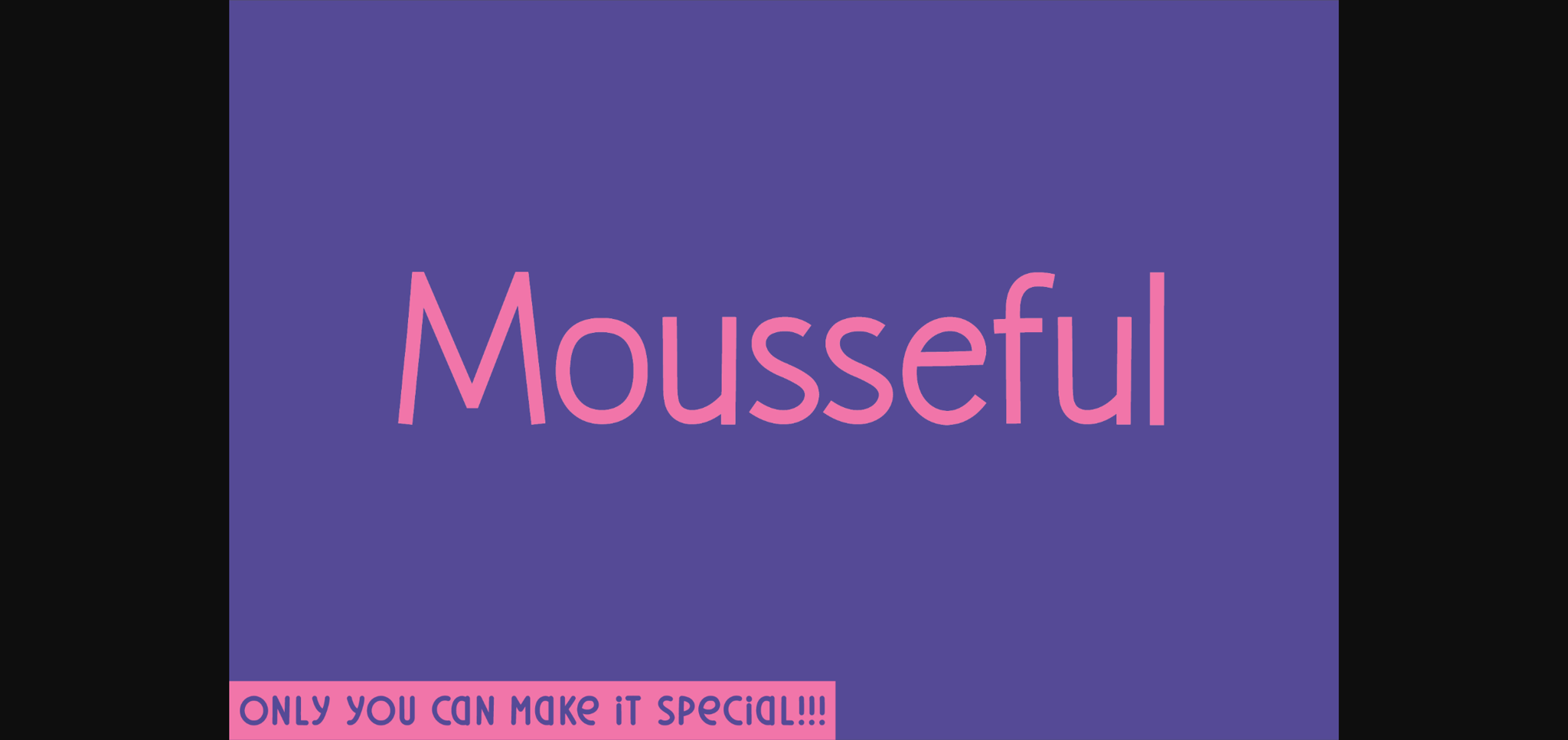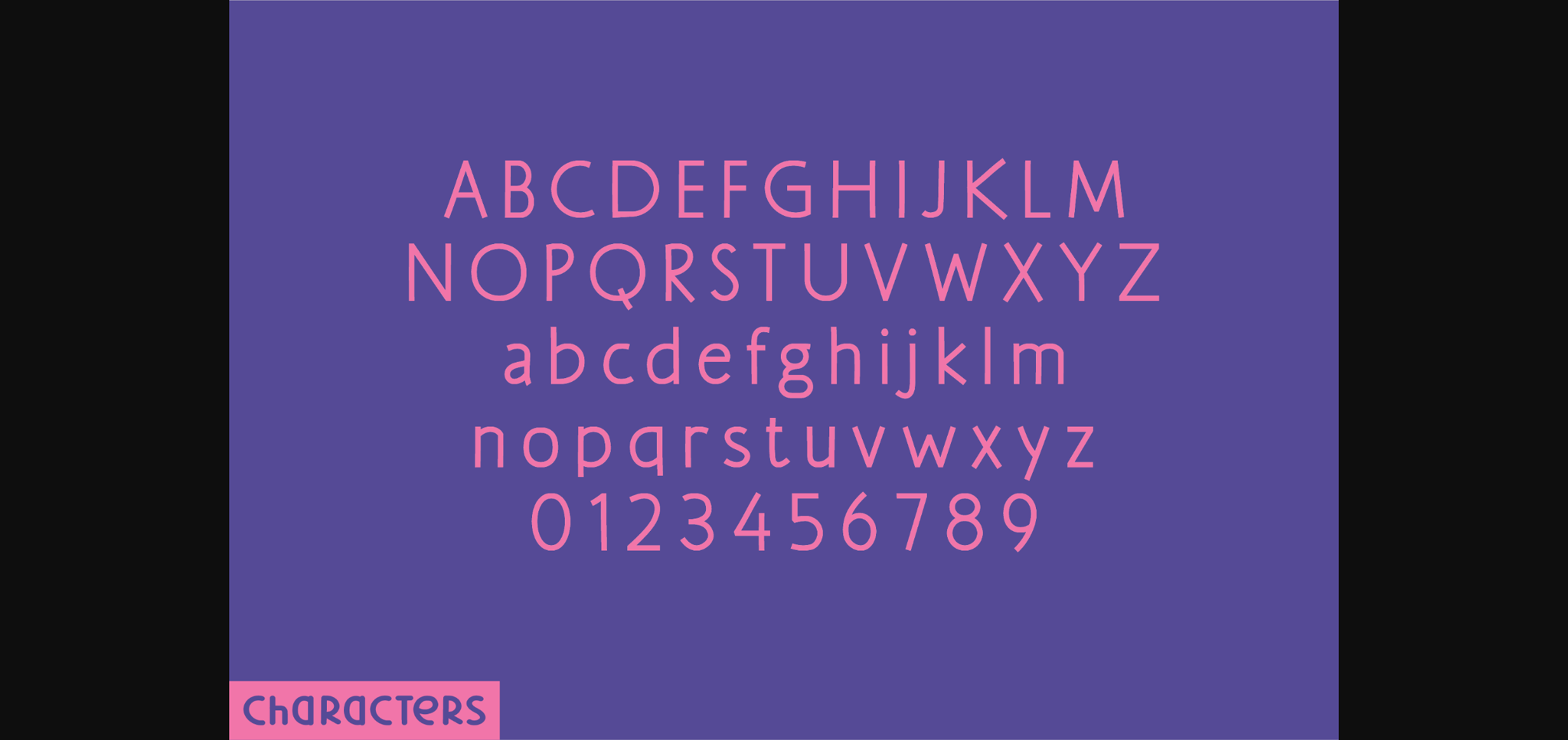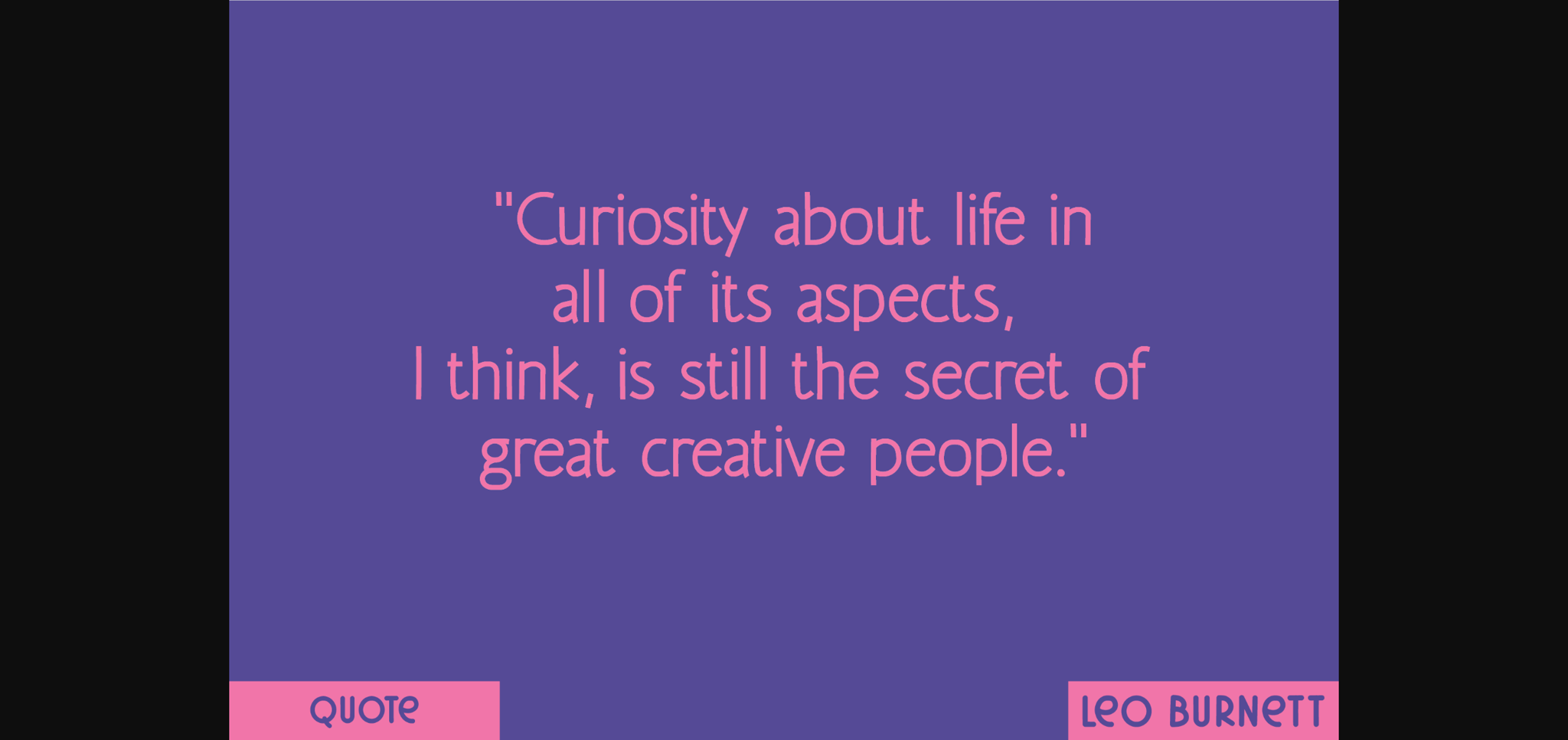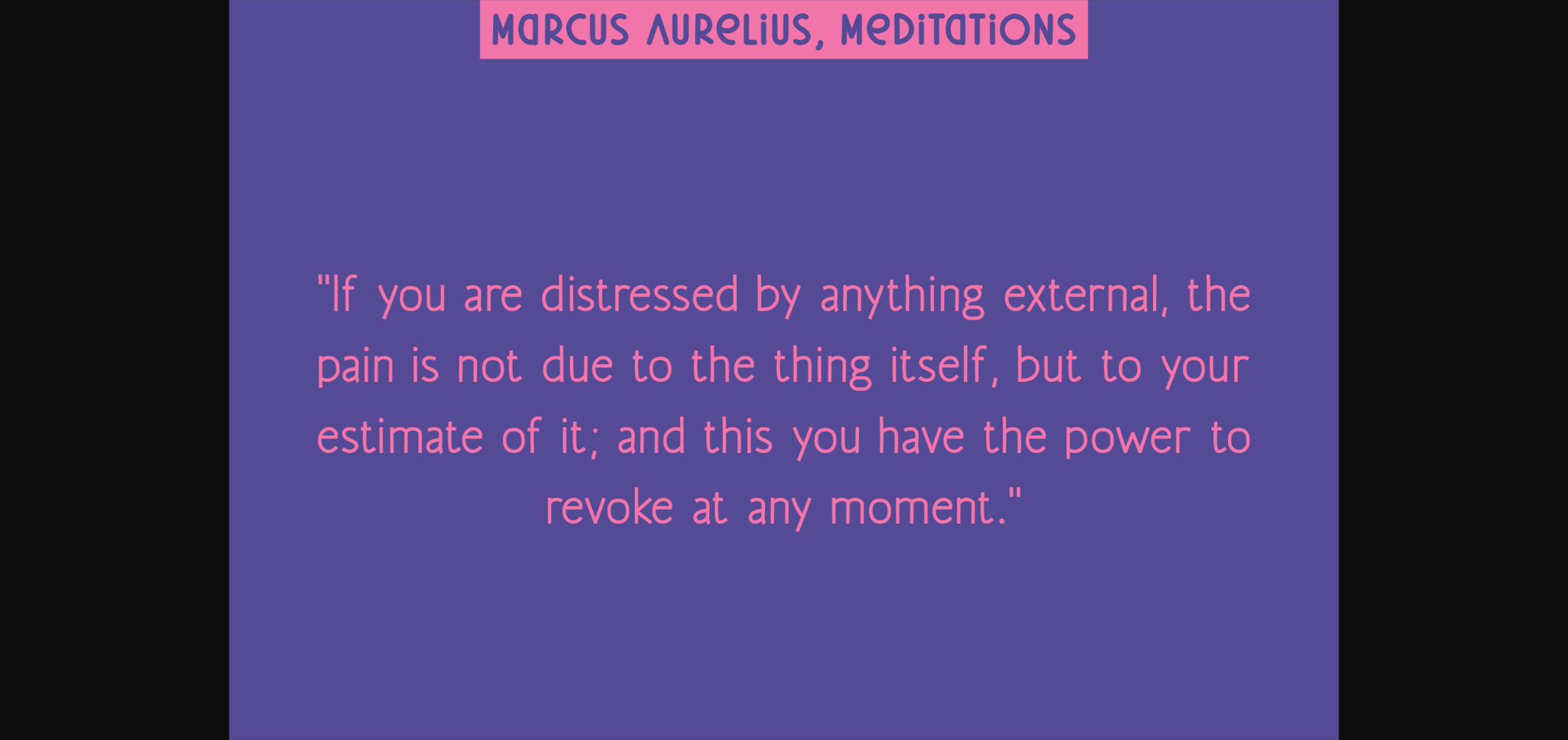
About Mousseful Font
Experience the tasteful elegance of Mousseful, a handwritten sans-serif font crafted with precision. This font assortment includes uppercase, lowercase, numbers, and highly-functional letters. Each letter’s contours are crafted with natural ends for a pleasing yet resolute feel. Mousseful harnesses the power of individuality, making it an ideal choice for designs that need to make a bold, unique statement.